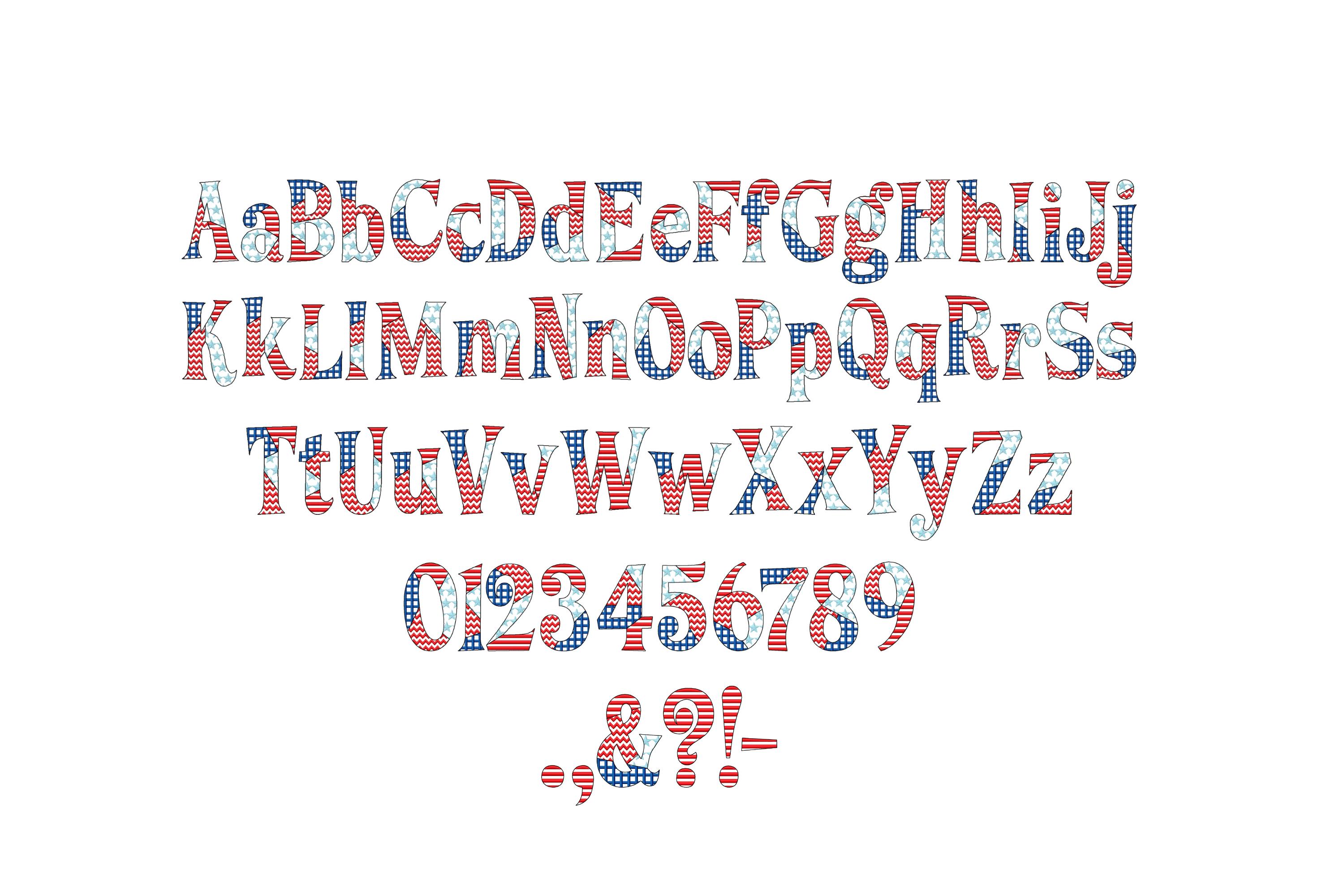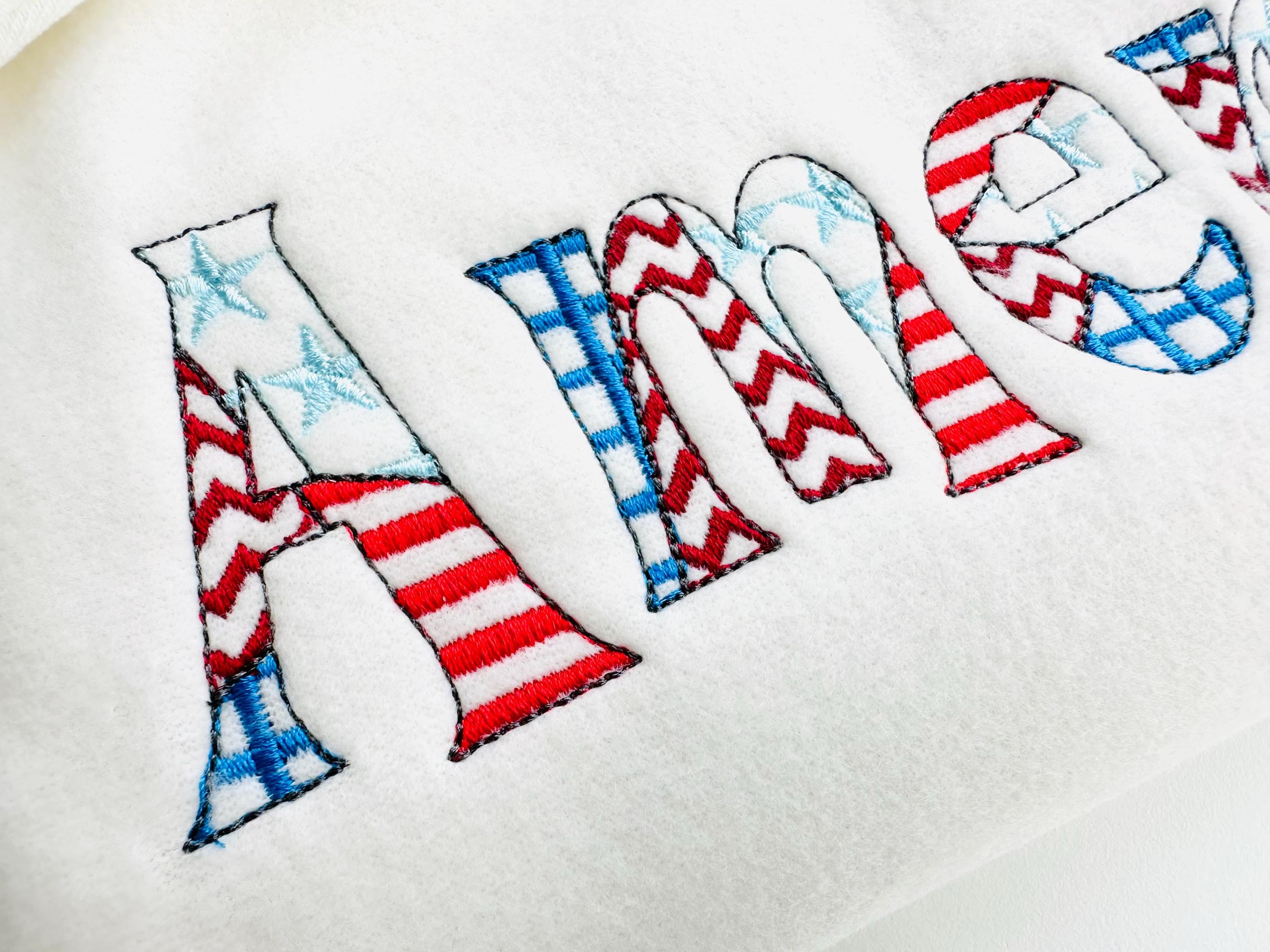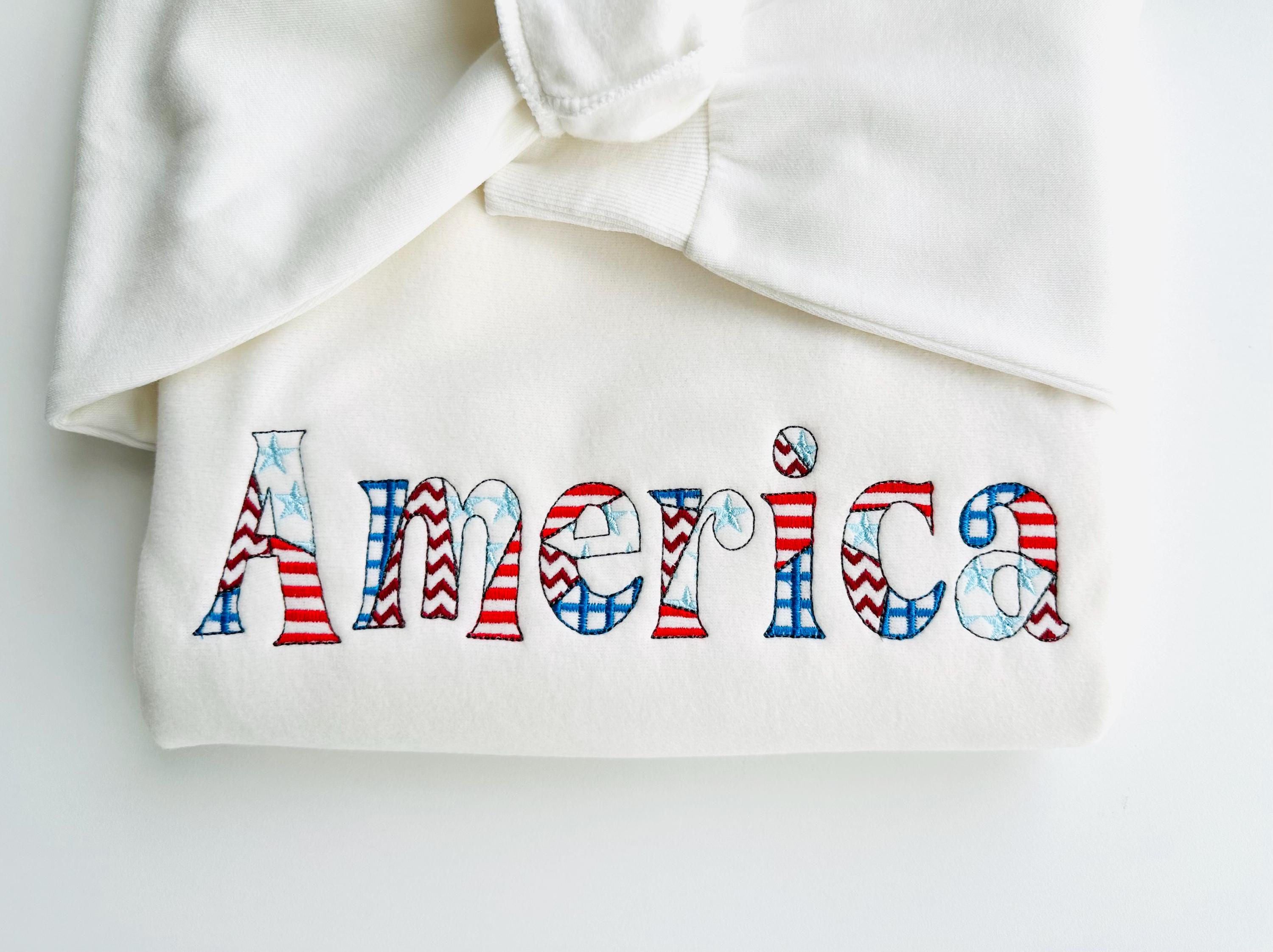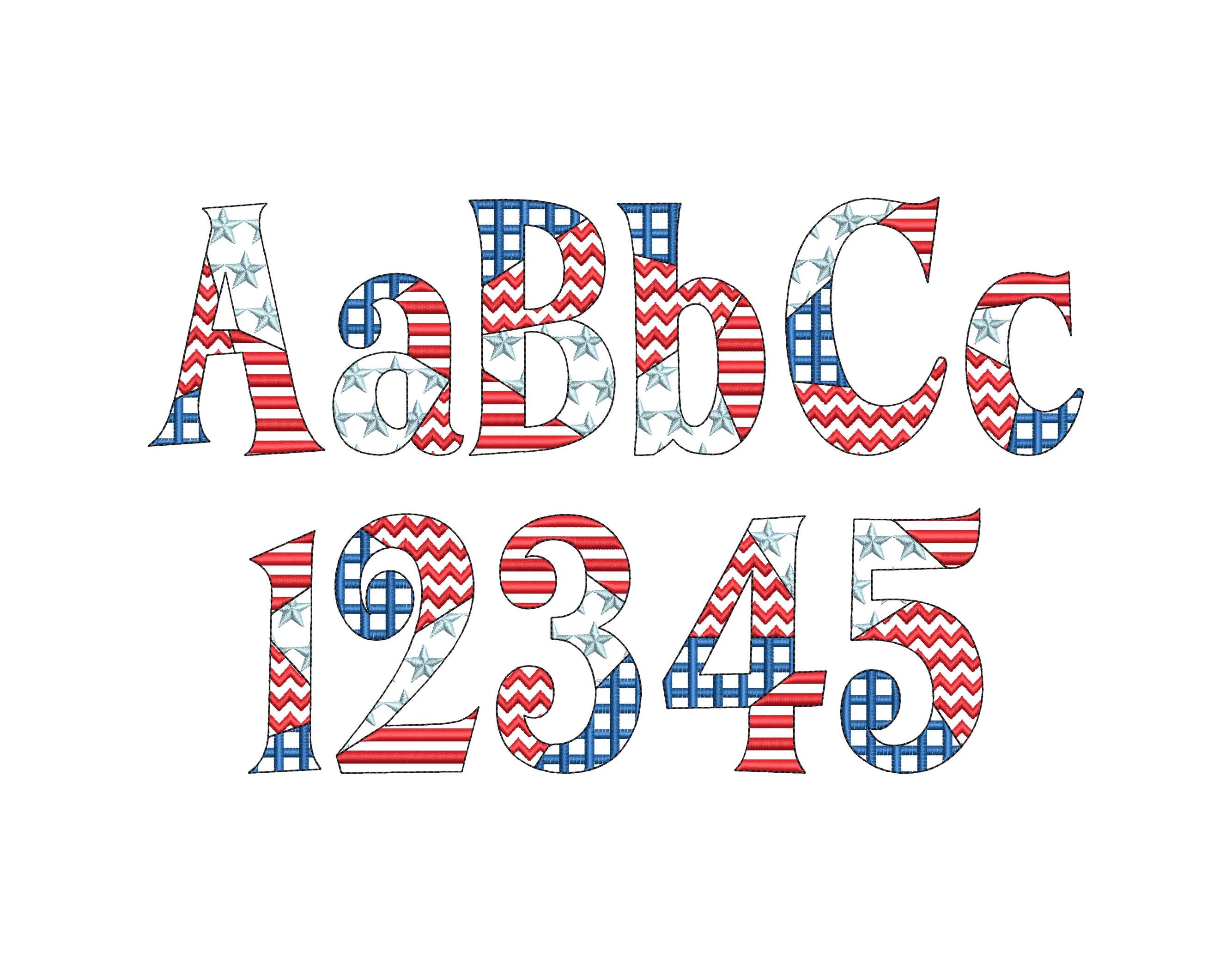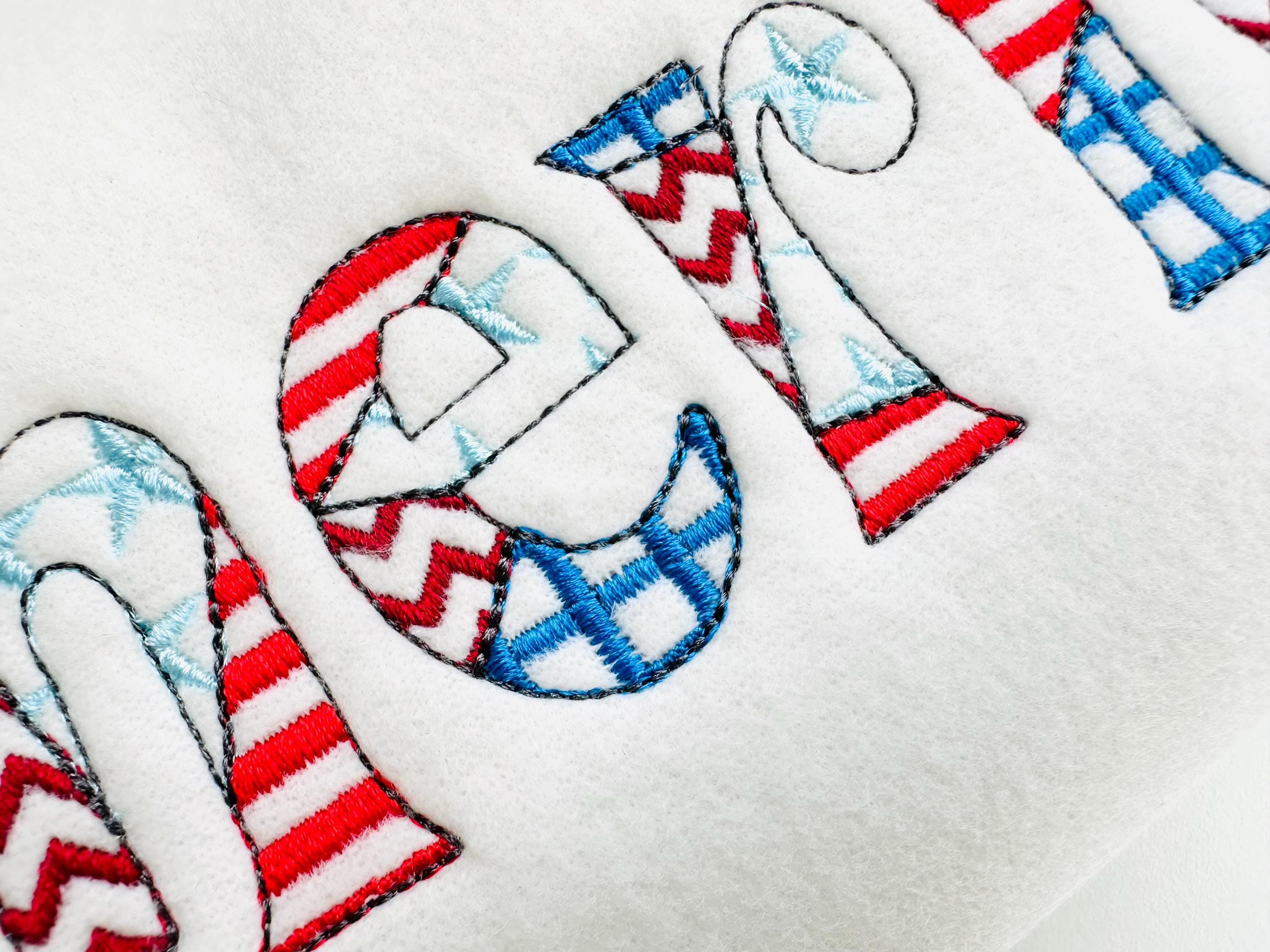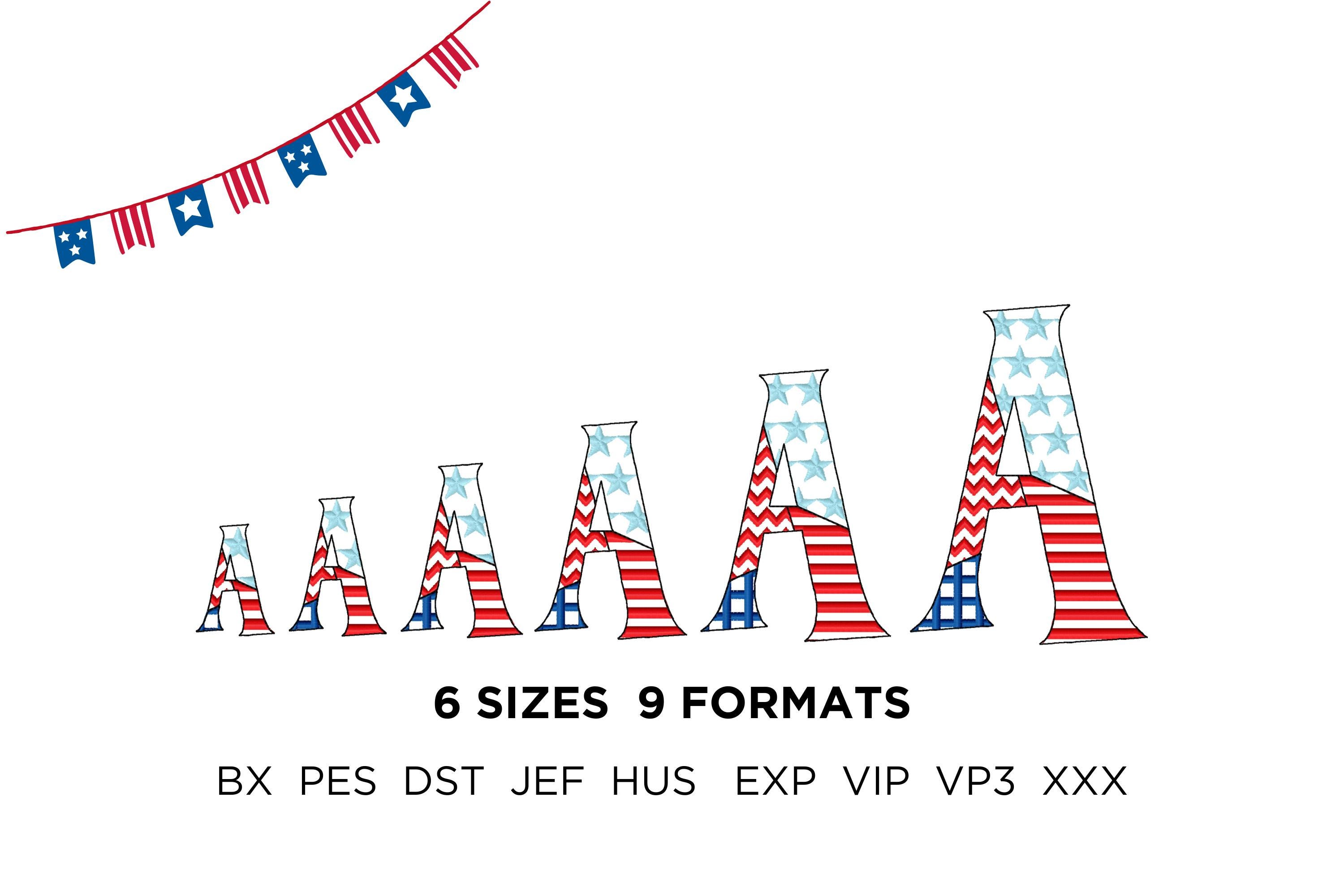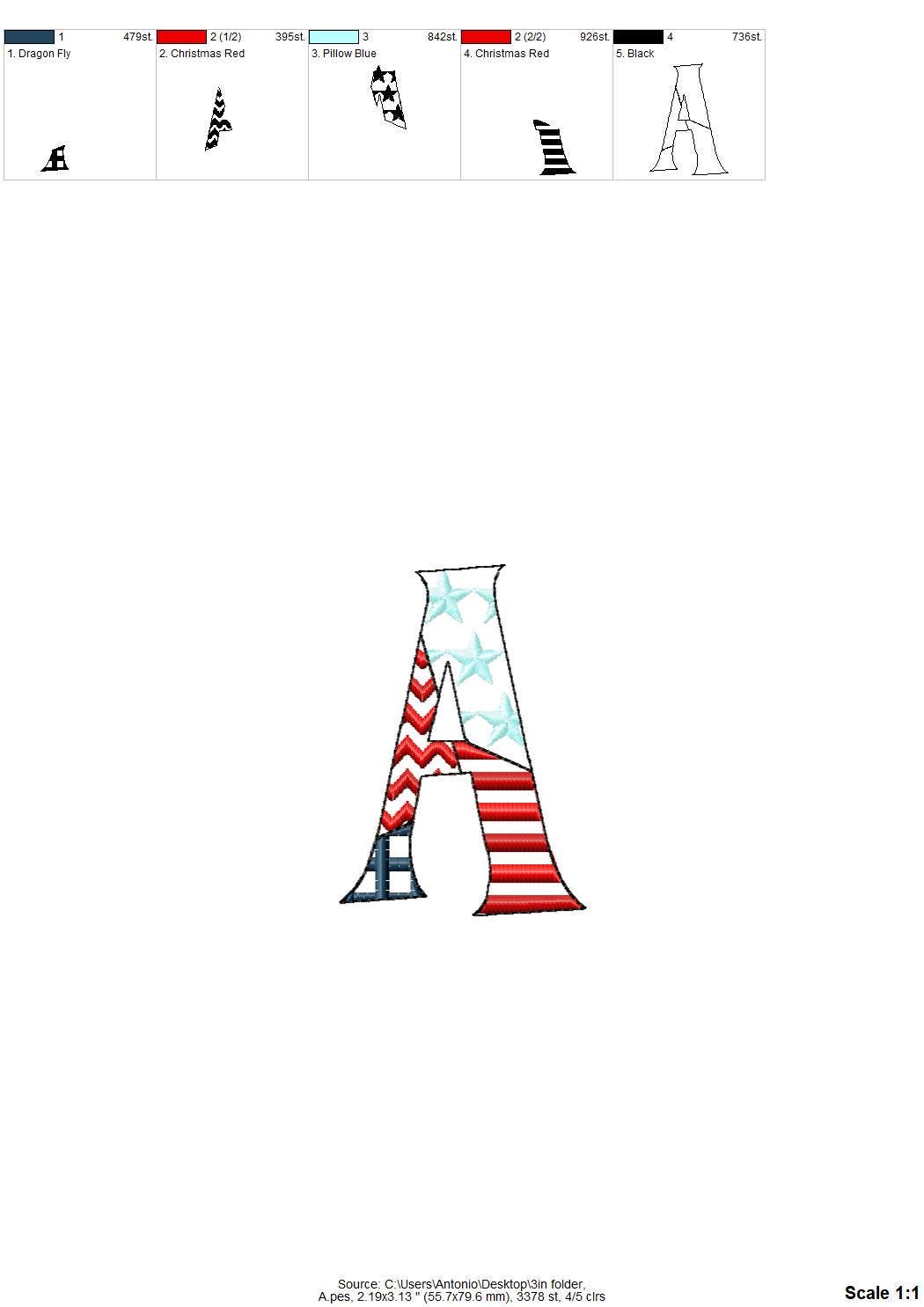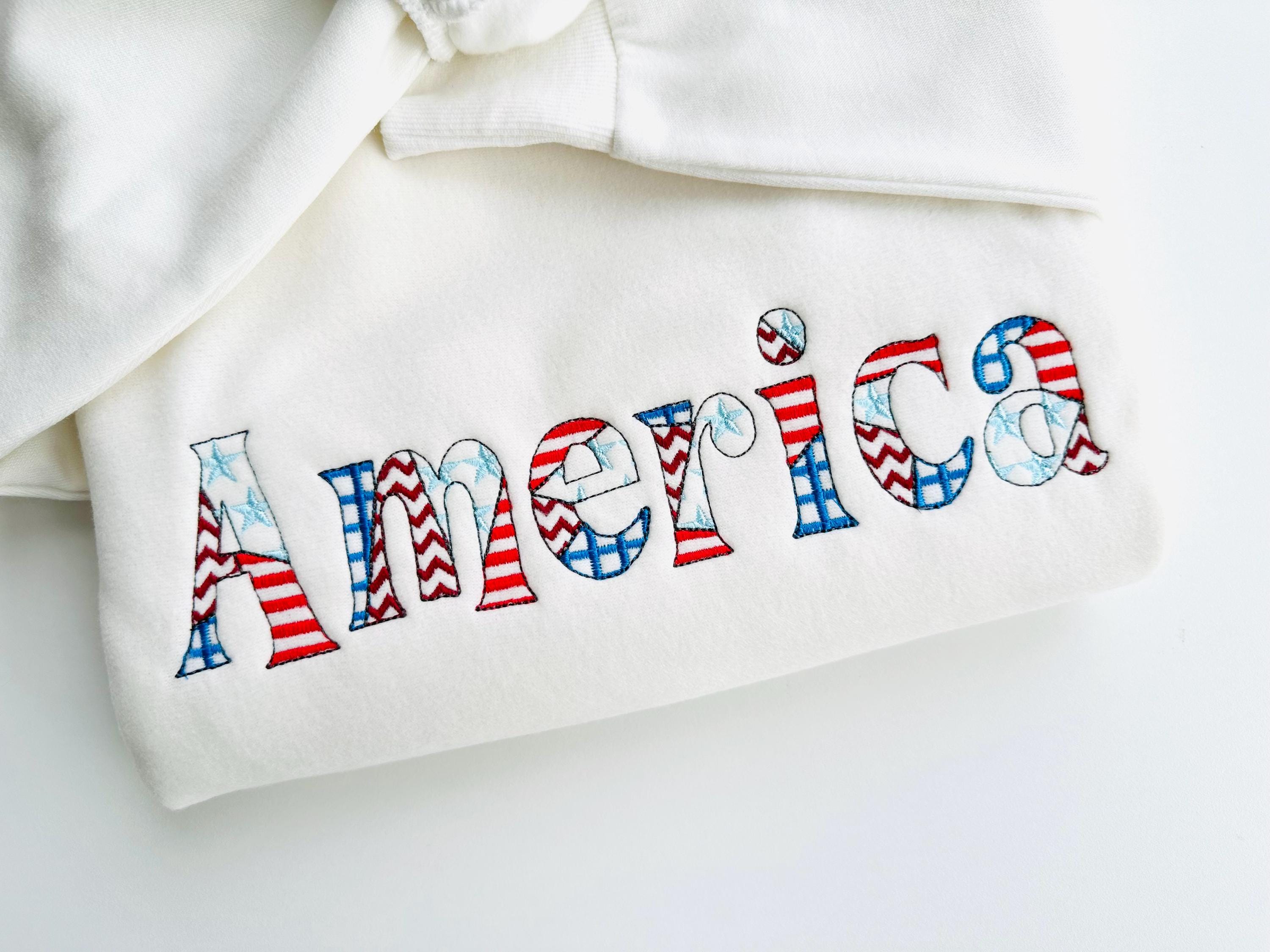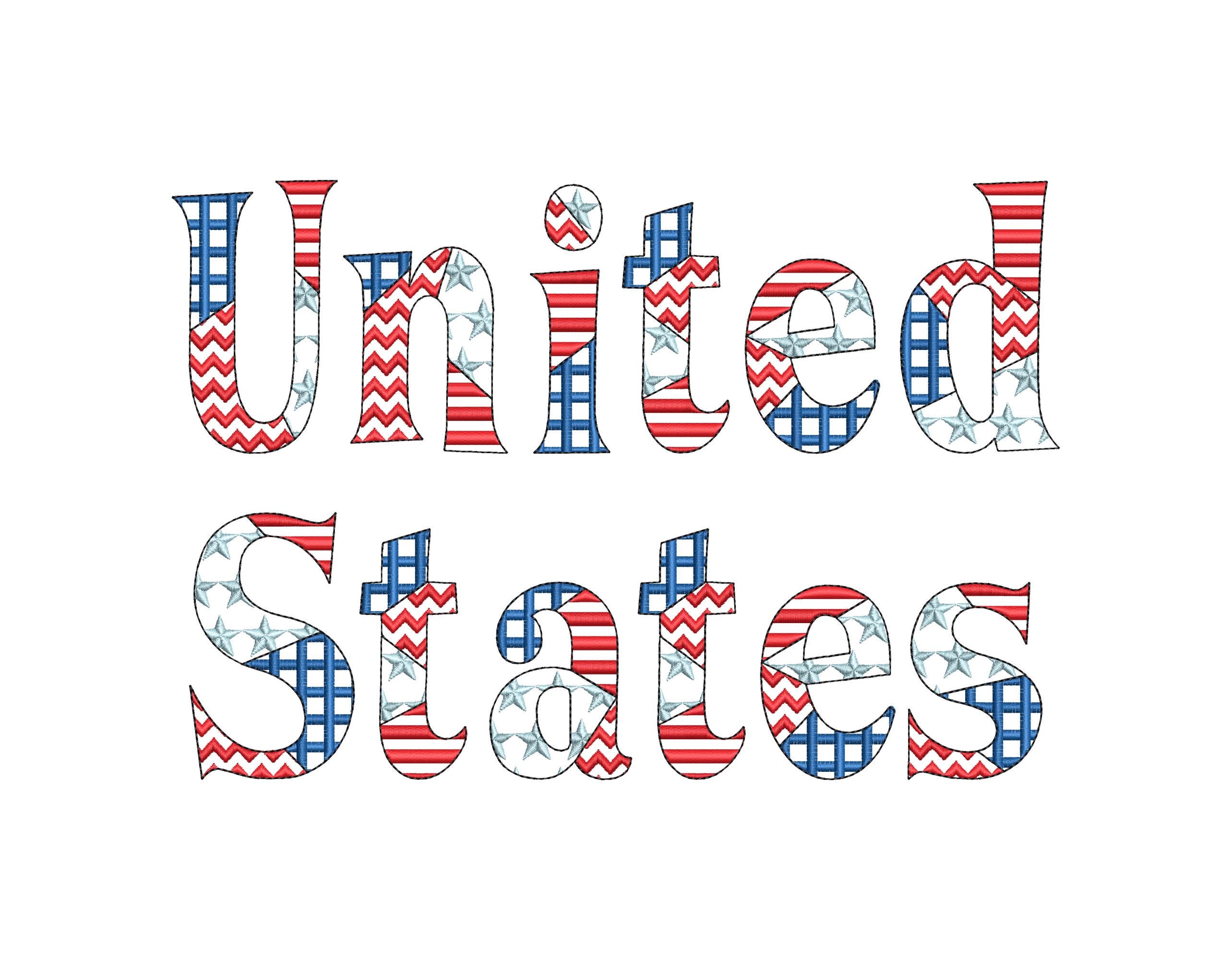
Patchwork FONT American flag patterned and outline alphabet Monogram letters patriotic machine embroidery designs sizes 1.6 up to 5 inch
Whole alphabet Aa-Zz uppercase and lowercase letters, numbers 0-9, and punctuation.
Patterns are part of the embroidery. The font is transparent, and the background fabric looks through. Stunning effect!